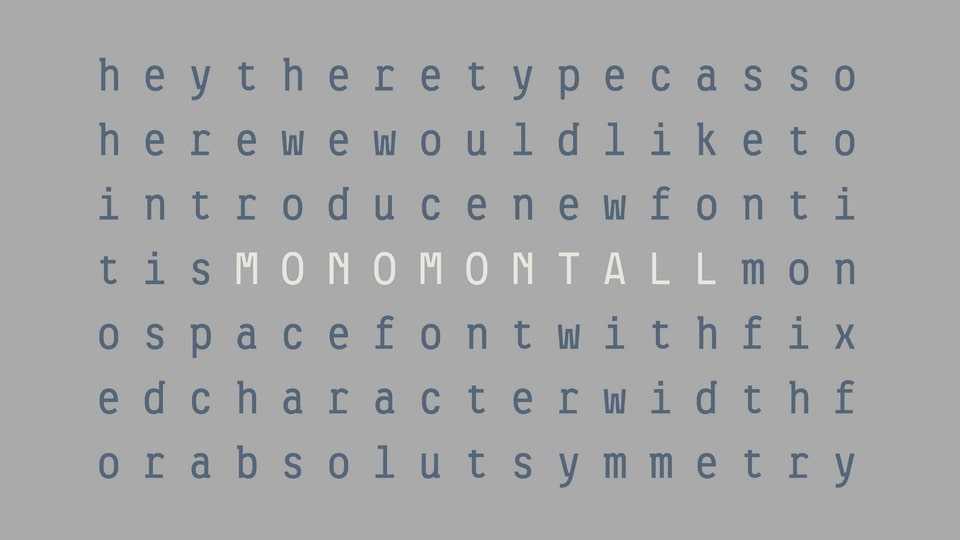
Download Monomon Tall font, a monospaced typeface with tall, elongated letterforms designed for absolute symmetry and a distinctive vertical presence.